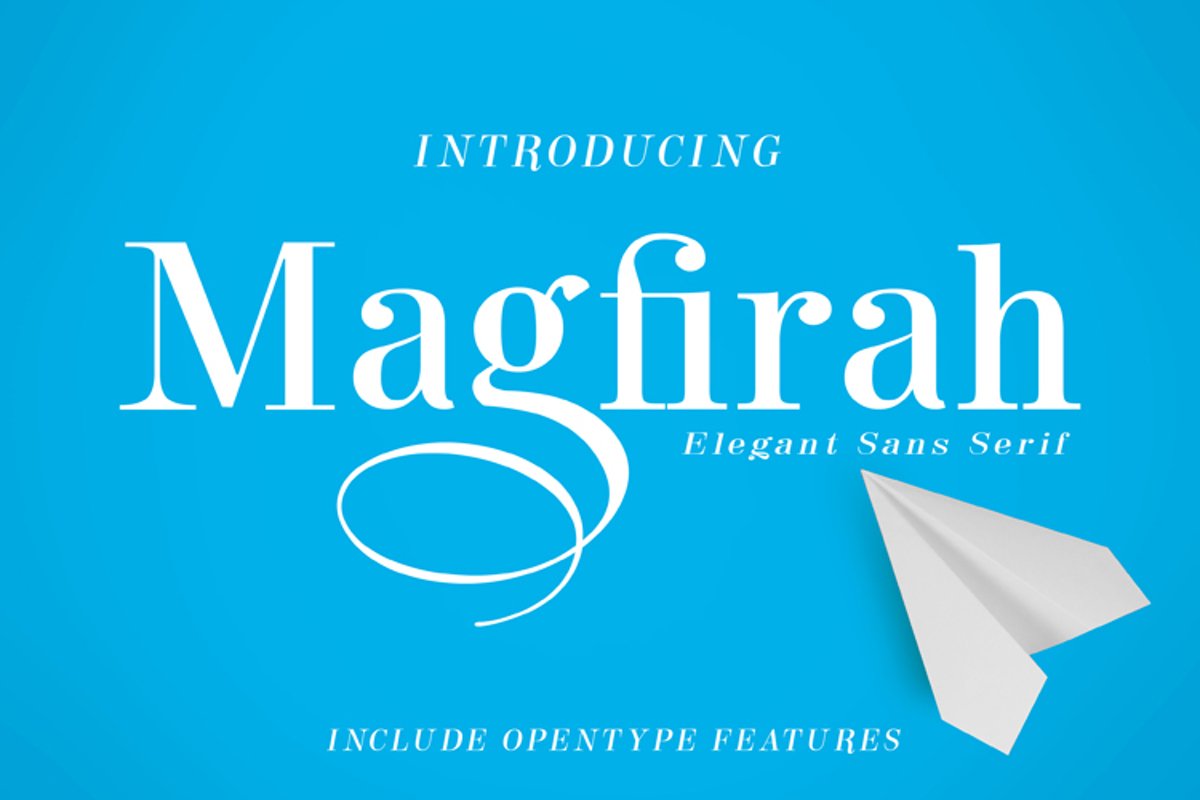
Magfirah
Magfirah Italic
Magfirah
Magfirah is a serif font that combines classic style fonts moderated with a touch of minimalist design, produces beautiful and elegant fonts, and is supported by ligatures and more font substitutes with all characters brought in will make you explore your design style more easily, with various alternative styles that allow for logos, posters, covers, main packaging, t-shirts, business cards, wedding cards and more, so what are you waiting for? What's included?